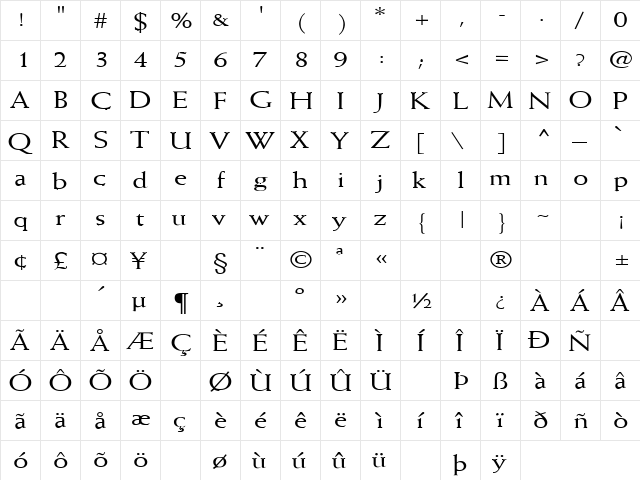
Woman Of The World 6 Regular
Design Context for Woman Of The World 6 Typeface
Woman Of The World 6 takes a measured approach to typography — its balanced proportions and neutral character make it a reliable workhorse for both digital and print work.